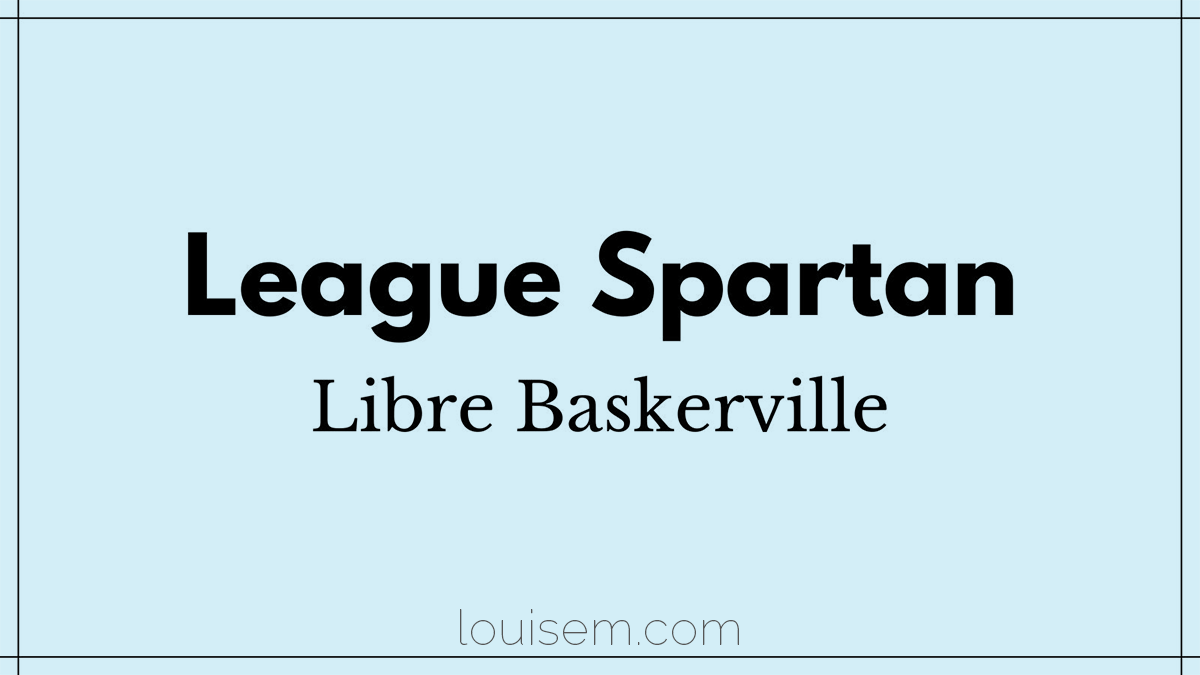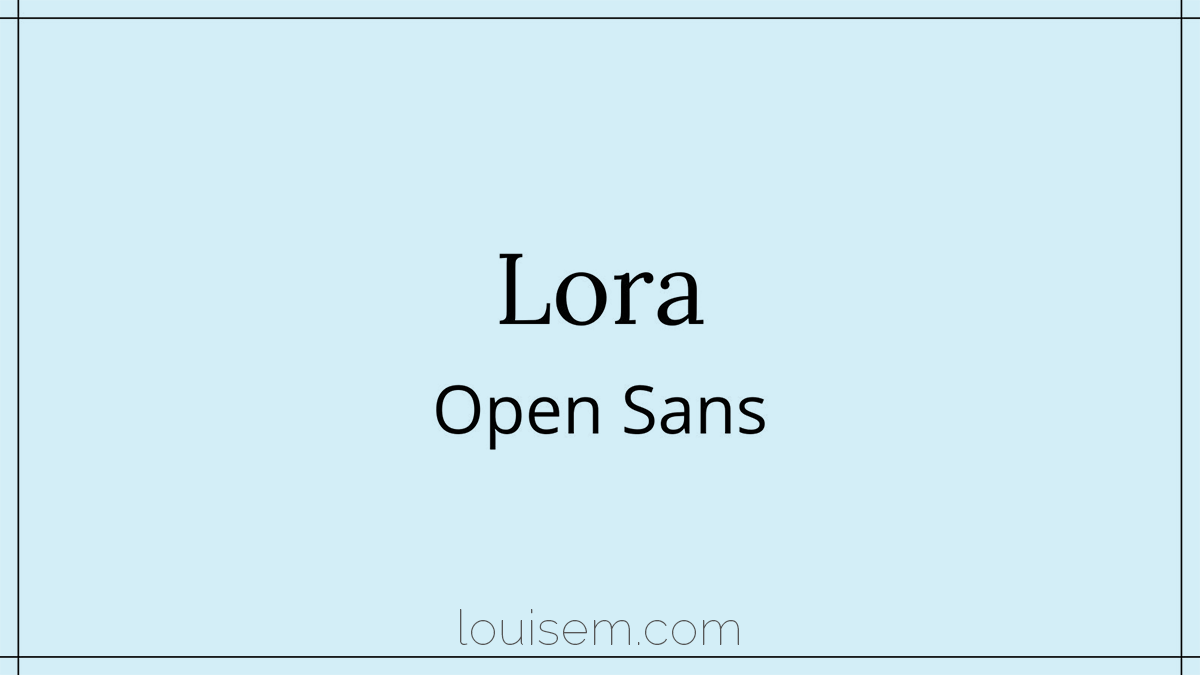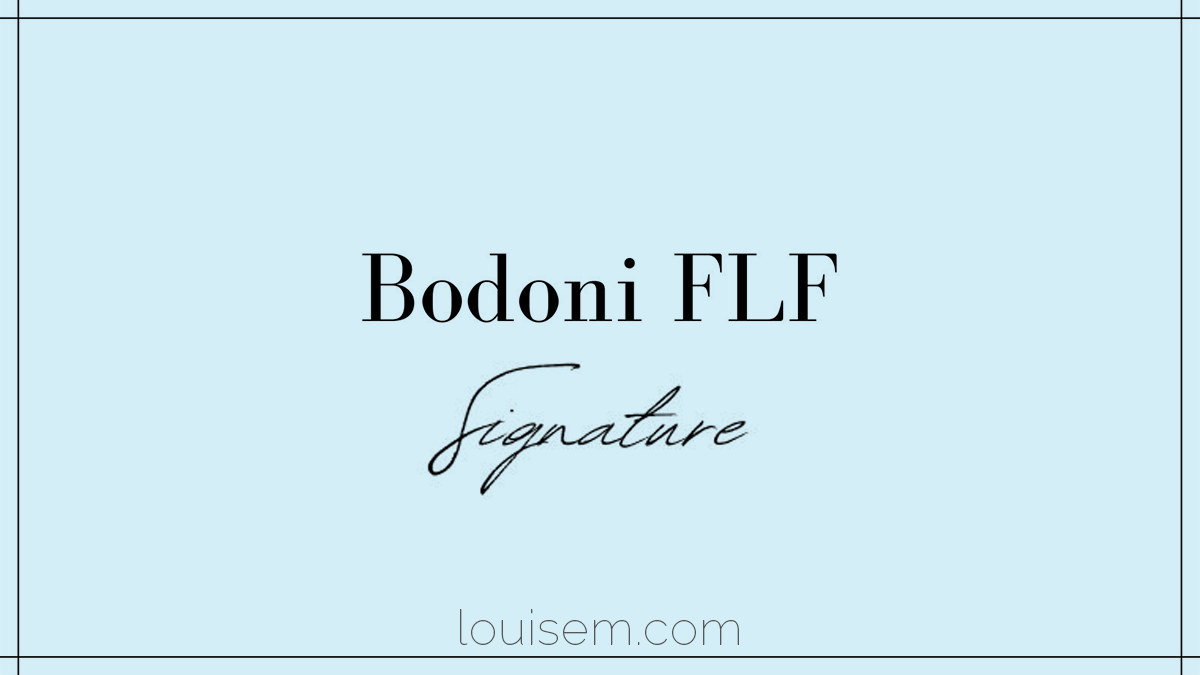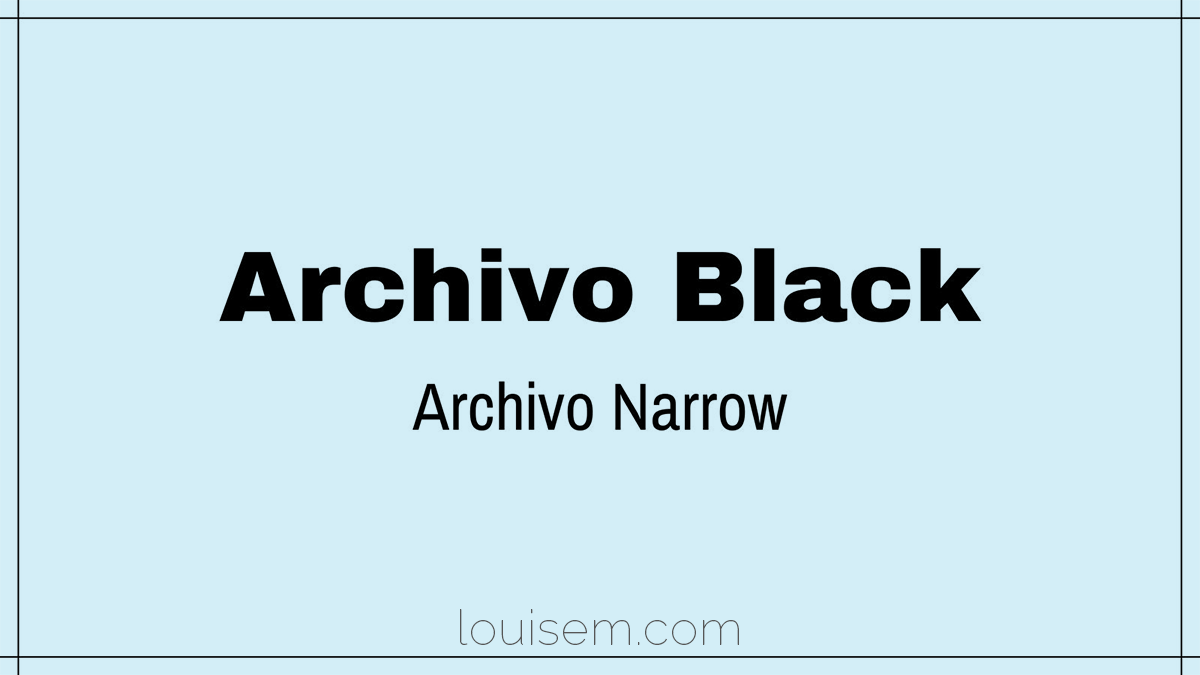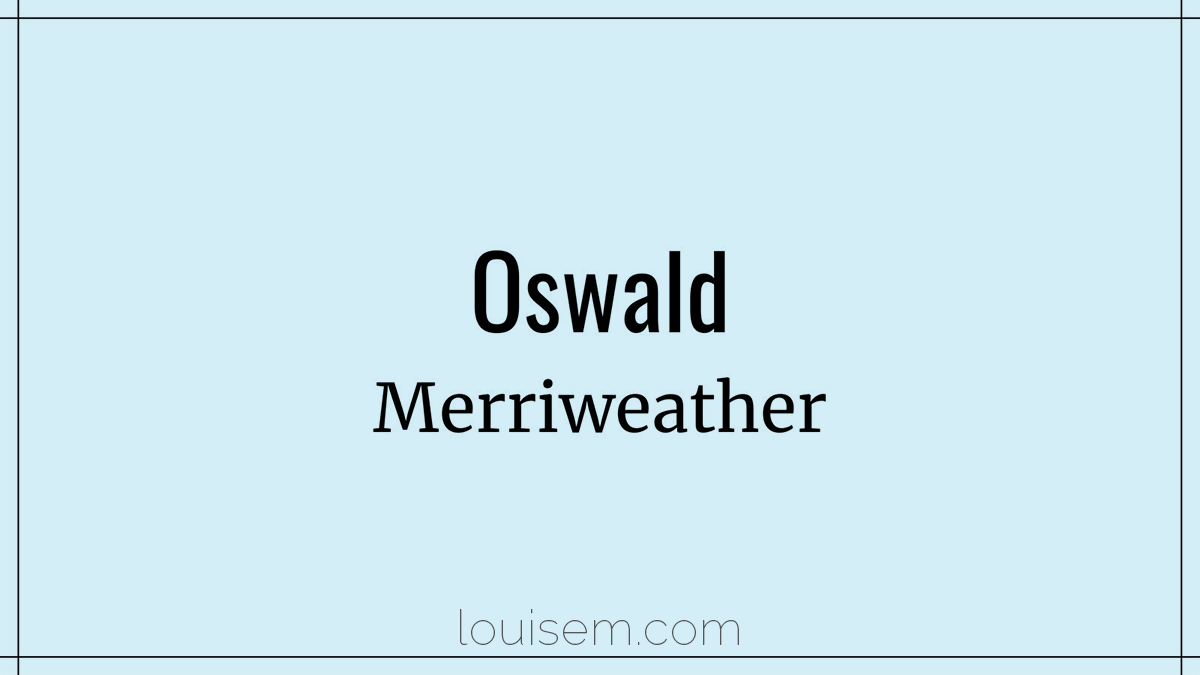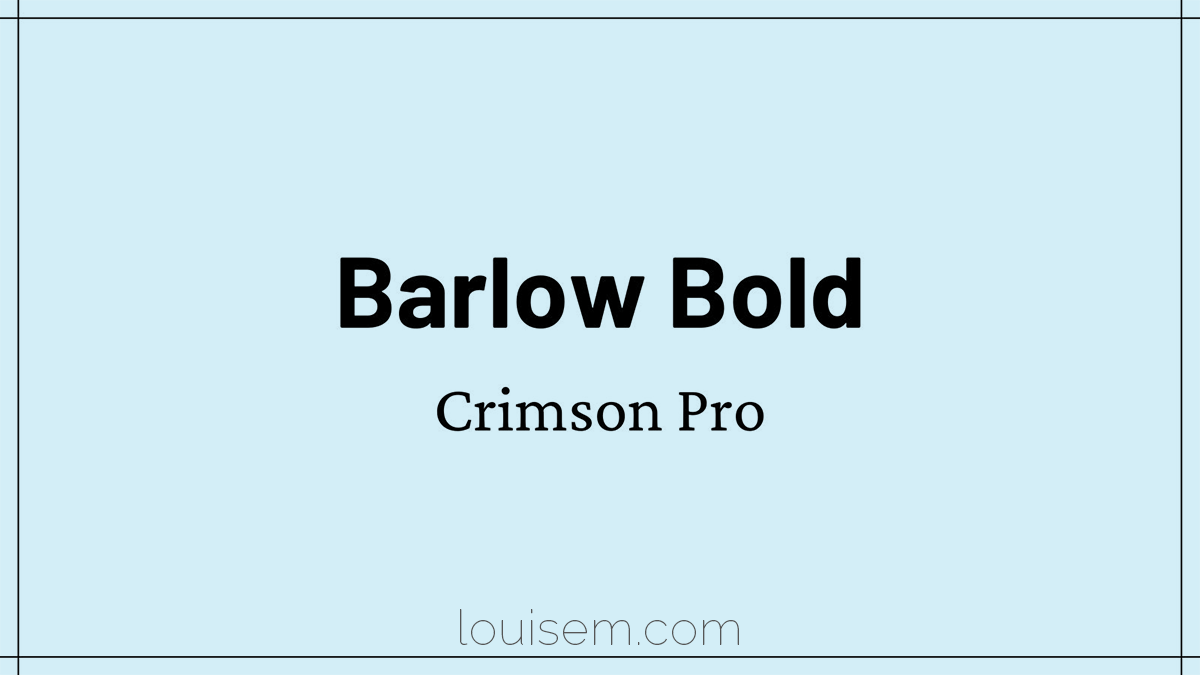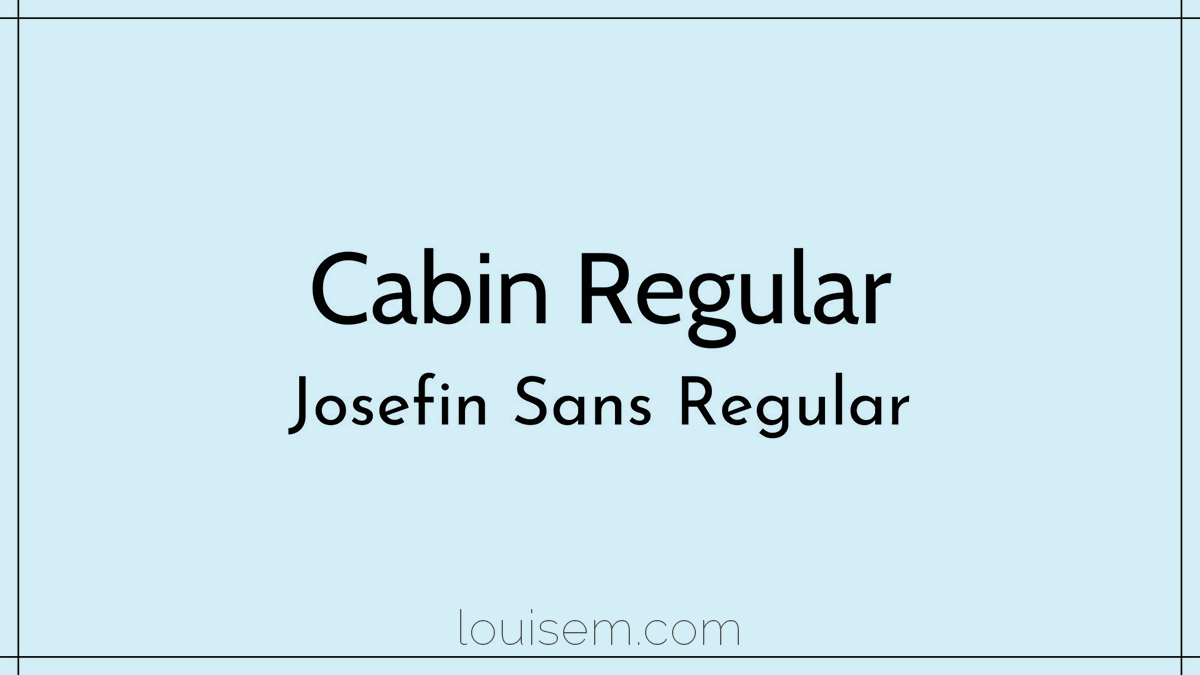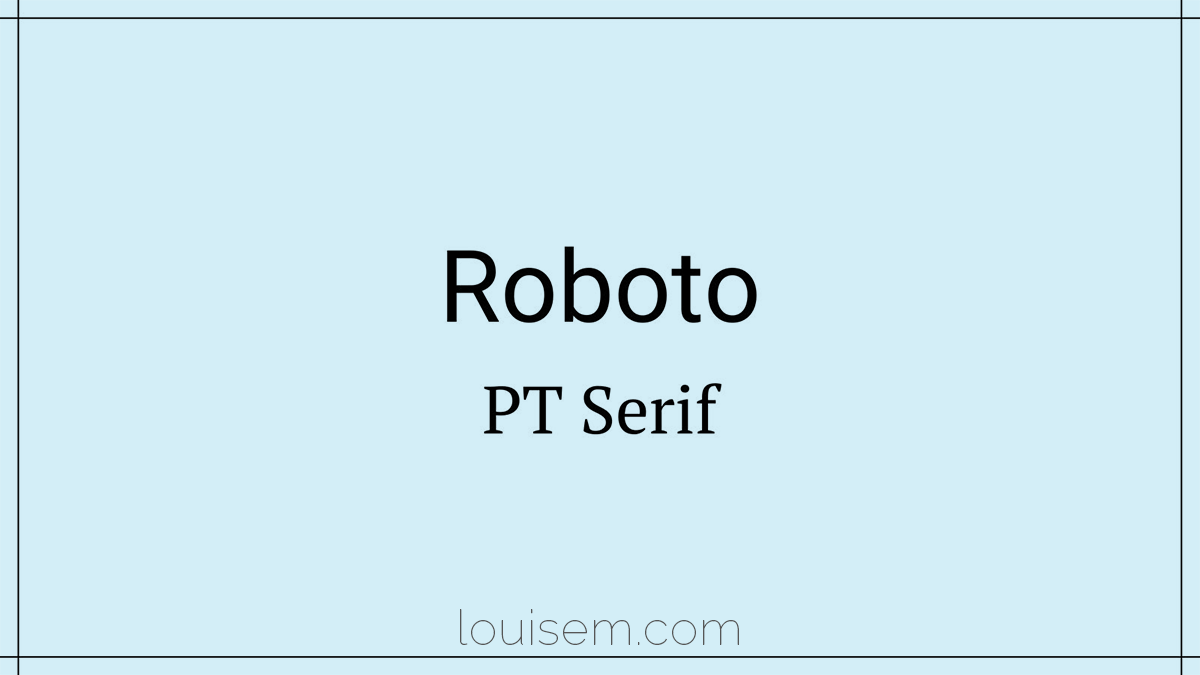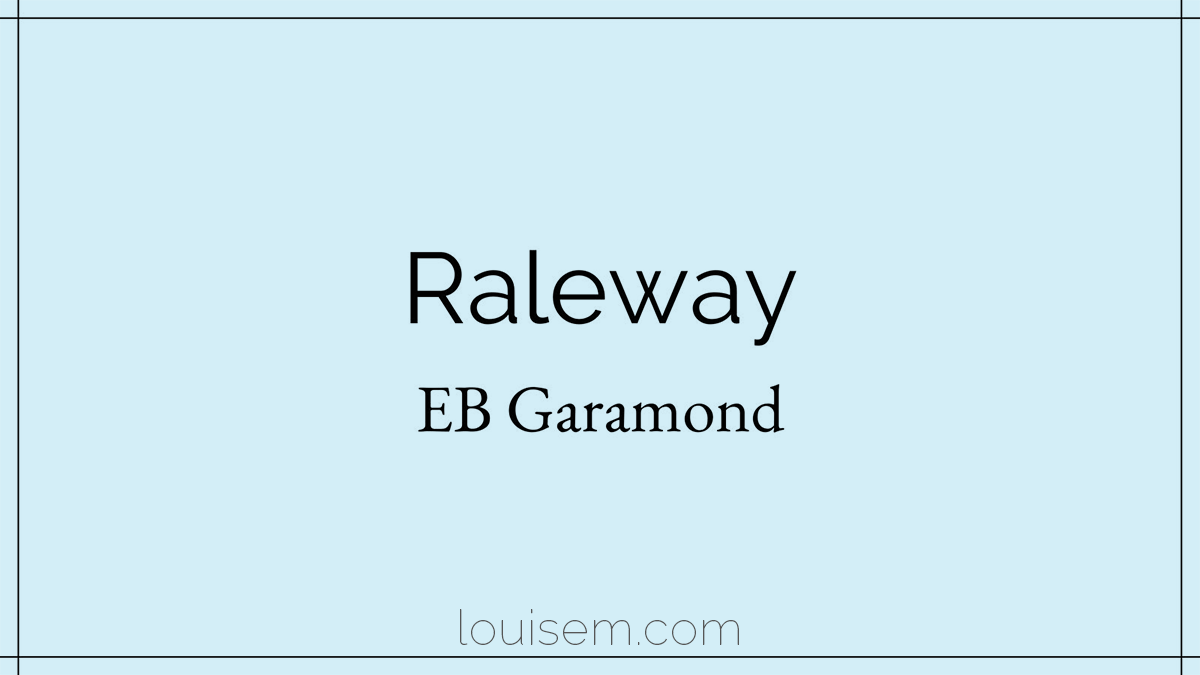
Top 10 Canva Font Pairings for Outstanding Designs in 2024
Confused by Canva font pairings?
Fonts can make or break your design, so it’s important to know which ones work well together.
Canva has lots of amazing fonts inside, both for free and Pro users.
Let’s look at the best Canva fonts that go together, and why they’re so popular.
Plus how and when to use them!
Best Canva Font Pairings
A well-designed piece is nothing without great fonts. And Canva has so many!
Let’s look at 10 of the best font pairs. If you need some general info first, jump to learn more about fonts.
League Spartan and Libre Baskerville
League Spartan is a modern sans serif font that is eye-catching for headings.
Paired with the serif font of Libre Baskerville, it creates a great contrast.
Use a serif font for the body copy with this pairing for the best results.
font pairing of League Spartan and Libre Baskerville.
Bodoni FLF and Signature font combo
Bodoni is a strong serif font for headings that is very eye-catching.
It works well with Signature which is a script font.
But use it sparingly as it won’t be the easiest to read on small screens.
Pair them with a simple sans serif body font.
canva font combo Bodoni FLF and Signature.
Archivo Black and Archivo Narrow
This a great example of two fonts that are the same typeface, but look different.
The bold, black version is hard to miss while the narrow version is better for more text.
This pairing is particularly great for activity-oriented projects like sports.
canva font pair archivo black and archivo narrow.
Oswald and Merriweather font pair
This is a modern classic pairing that works with any project.
The sans serif Oswald is perfect for headings while Merriweather is a great body copy font.
canva combo of fonts Oswald and Merriweather.
Barlow Bold and Crimson Pro
This a great example of two Google fonts that work well together.
Barlow is a modern, sans serif font while Crimson Pro is a classic serif font.
google font pair in canva of Barlow Bold and Crimson Pro.
Cabin Regular and Josefin Sans Regular
This is a great pairing for a more vintage feel.
Cabin is a hand-drawn font that gives a rustic vibe while Josefin Sans is a sans serif font with a vintage feel.
canva vintage font pair of Cabin Regular and Josefin Sans Regular.
Roboto and PT Serif Canva combo
This is a perfect pairing for a more modern look.
Roboto is a sans serif font that is perfect for headings while PT Serif works great in body copy.
modern font pairing of Roboto and PT Serif.
Raleway and EB Garamond
This pairing is great for more formal projects.
Raleway is a sans serif font that gives a modern twist to a classic look. I love me some Raleway!
Paired with EB Garamond, a serif font, it creates a perfect balance.
formal font pairing in canva of Raleway and EB Garamond.
Playfair Display and Montserrat
This is a great pairing for a more elegant look.
Playfair Display is a serif font that is perfect for headings while Montserrat is a sans serif font that works great in body copy.
elegant canva font pair of Playfair Display and Montserrat.
Lora and Open Sans font combination
This is a perfect pairing for a more sophisticated look.
Lora is a serif font that is perfect for headings while Open Sans is a sans serif font that works great in body copy.
sophisticated canva font combo of Lora and Open Sans.
The Anatomy of Fonts
Need a primer or refresher on font design?
Fonts are typically grouped into three main types:
Serif fonts have small projections at the end of the letters. These little “feet” make the words easily readable for body copy. Good to know if you’re creating an eBook in Canva!
Sans-serif fonts have no strokes at the end of letters or other embellishments. These are typically modern fonts.
Script fonts have their letters are linked together to look more handwritten. Script and cursive fonts are best used for headings and display type.
A font is also made up of many different parts, all of which contribute to its overall appearance:
• The cap height is the height of the capital letters.
• The x-height is the height of the lowercase letters.
• The baseline is the imaginary line upon which all the letters rest.
• The descender is the portion of the letter that extends below the baseline.